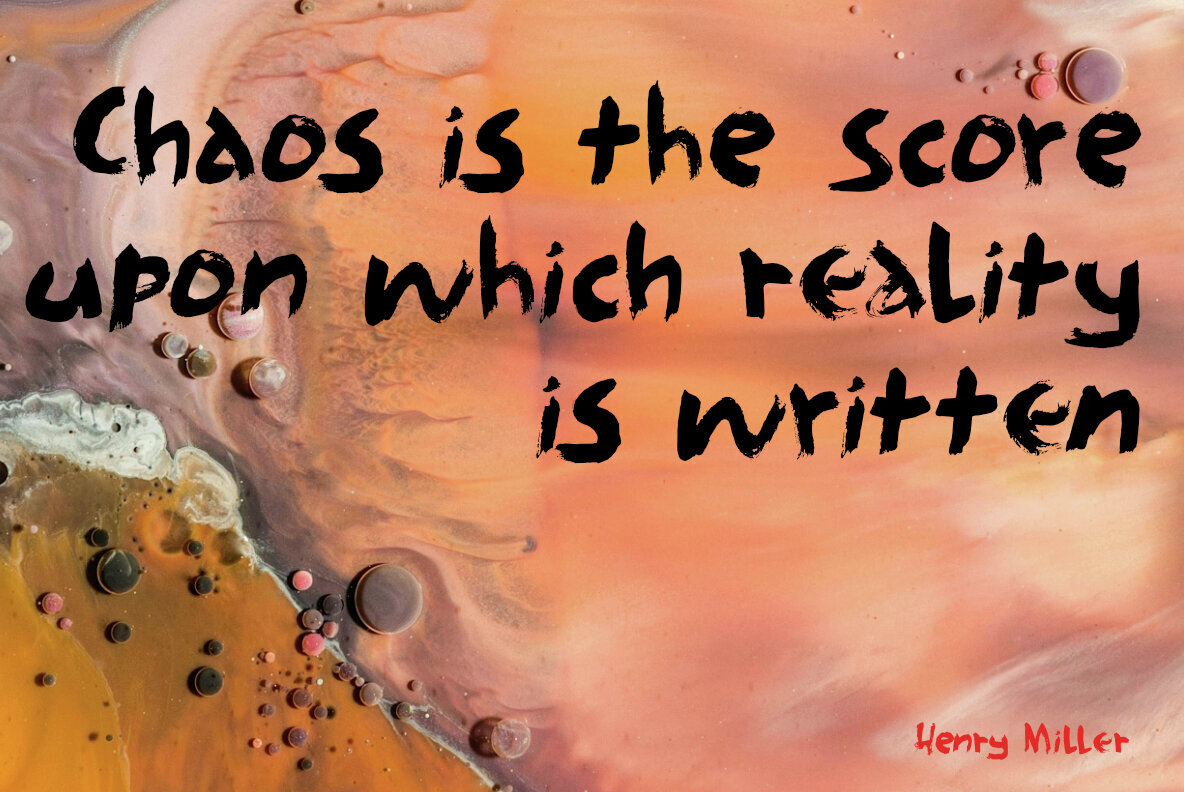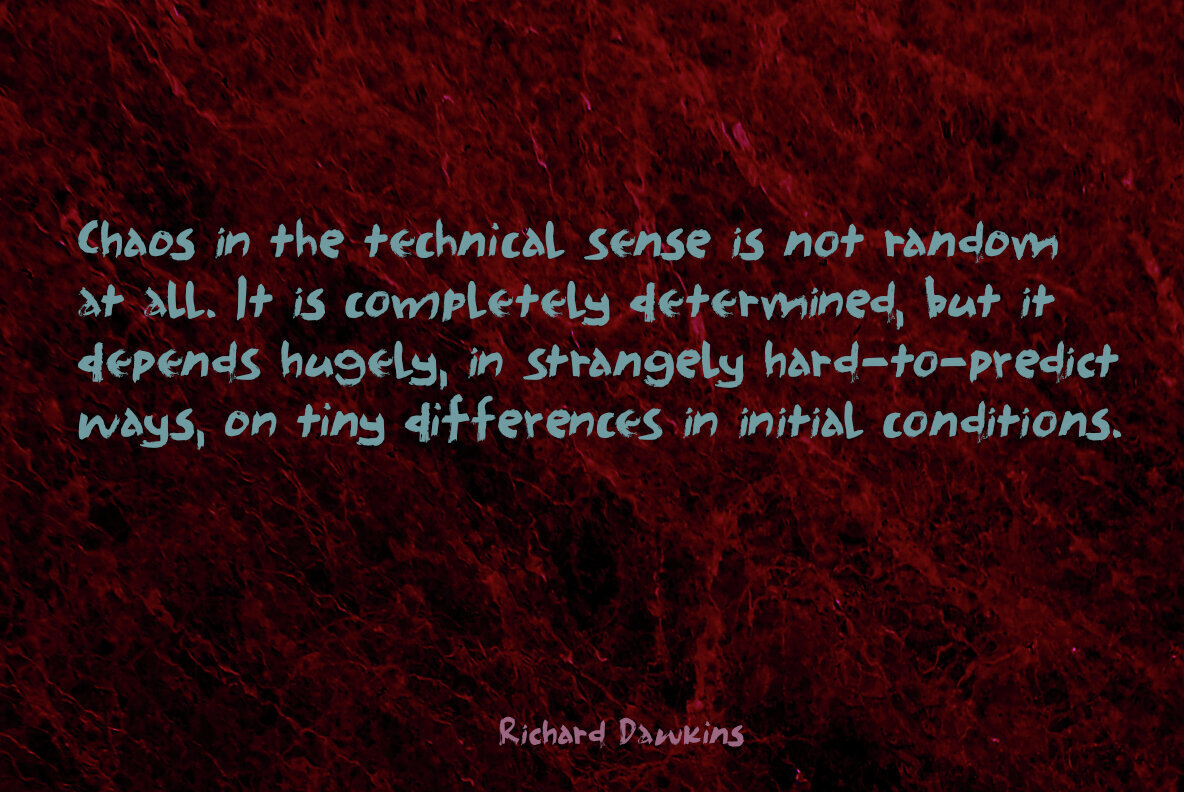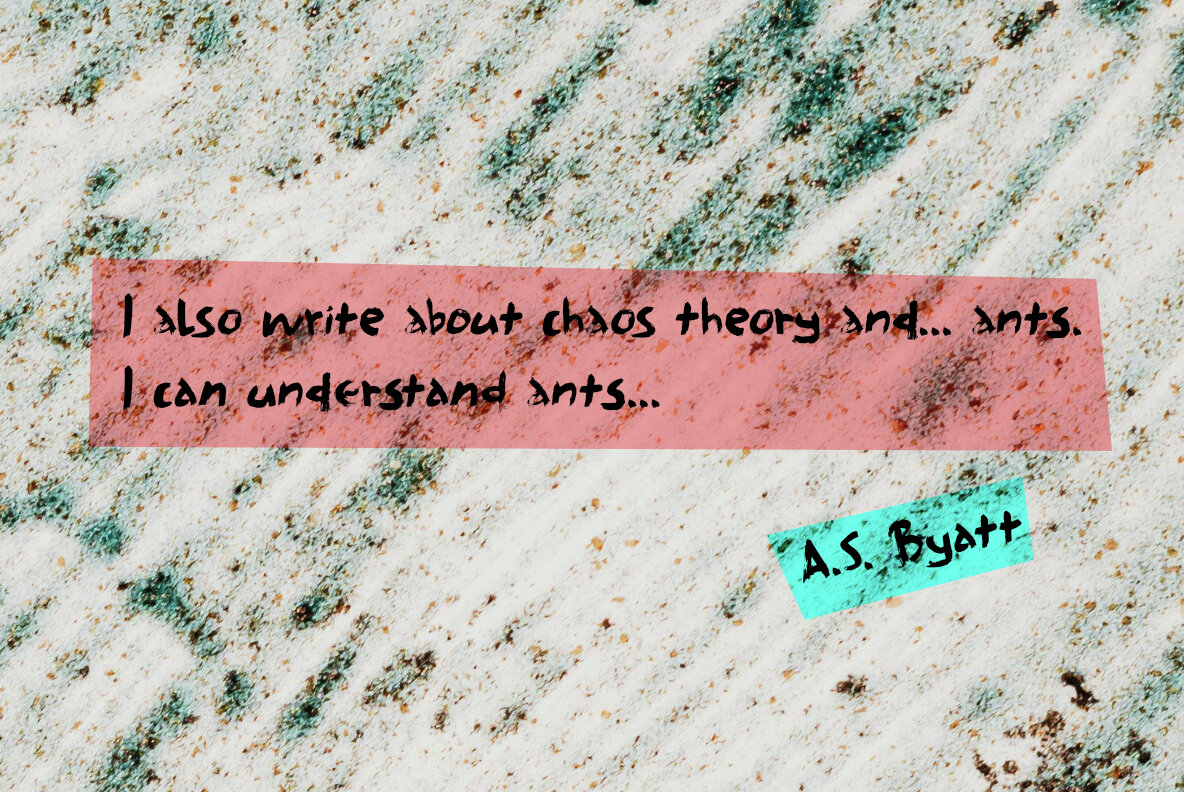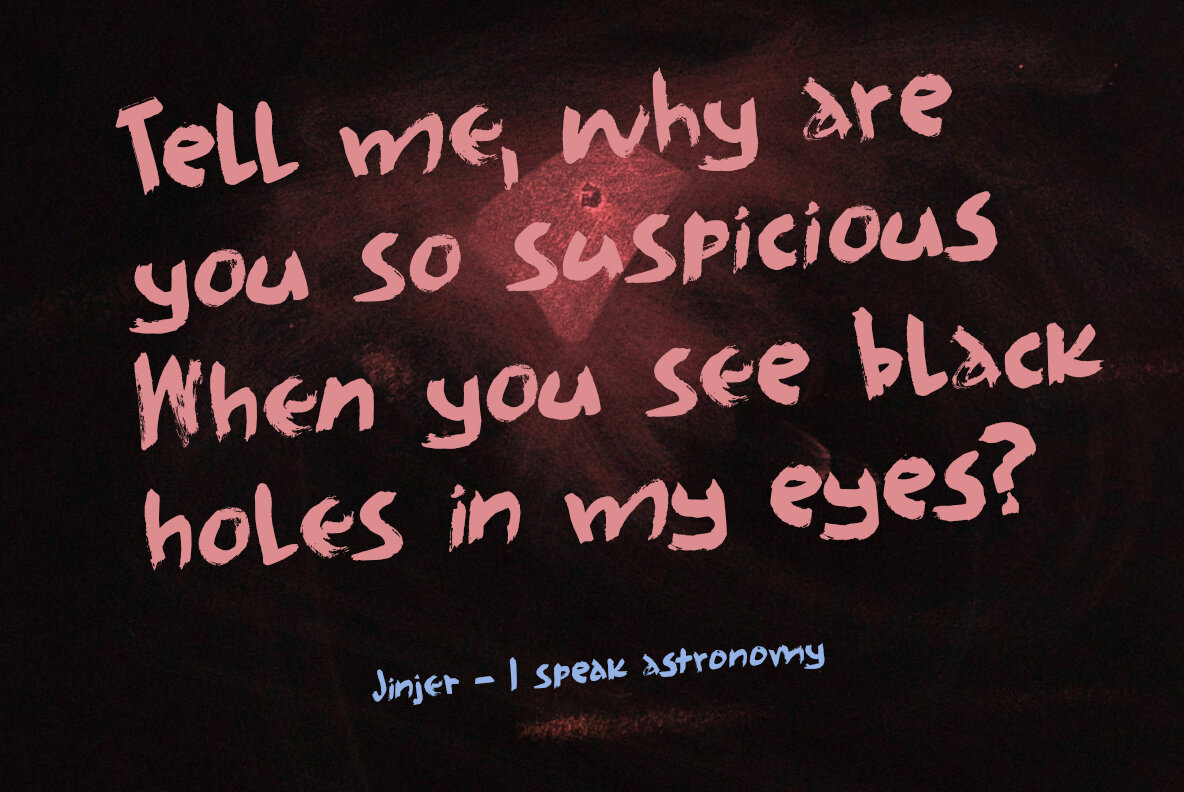
Chaos Manual Font
Chaos Manual Regular
Chaos Manual Italic
Chaos Manual font masterfully captures the essence of controlled chaos, providing a unique, brush-inspired look. While at first glance it may appear disorderly, a closer inspection reveals an elegant, well-thought-out design. Perfect for projects that require a bold statement, such as book covers, posters, metal album art, and product packaging, Chaos Manual brings an artistic flair that commands attention and curiosity.
This font’s intricate balance between messiness and sophistication makes it an excellent choice for creative professionals seeking to leave a lasting impression. Its versatility ensures that each application retains a unique, eye-catching element, ideal for both print and digital mediums. Enhance your designs with a touch of organized chaos that highlights creativity and innovation.